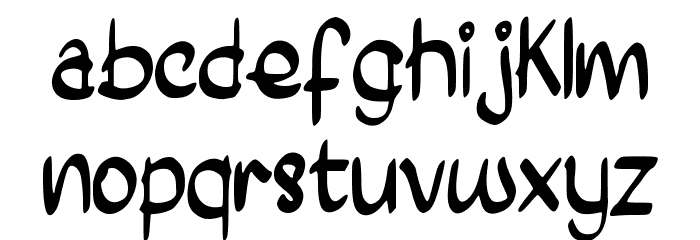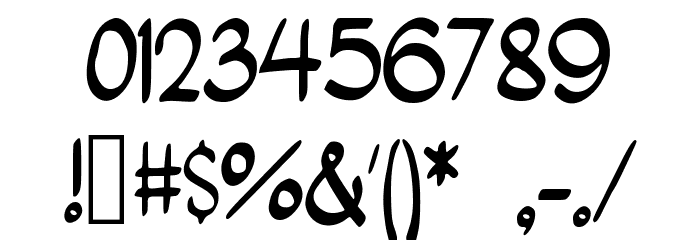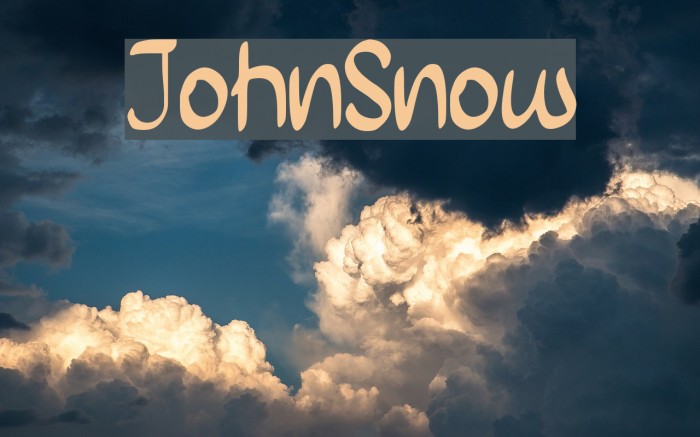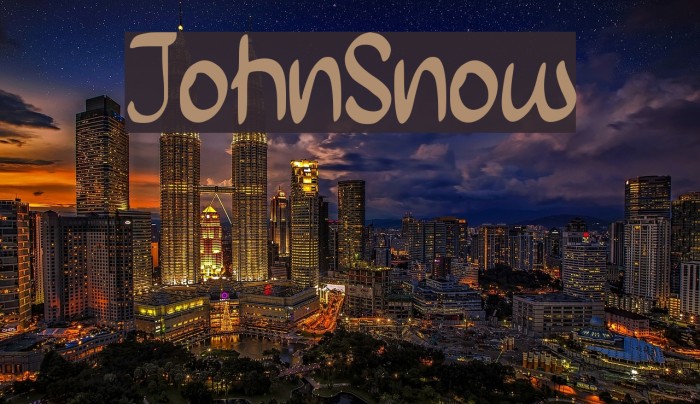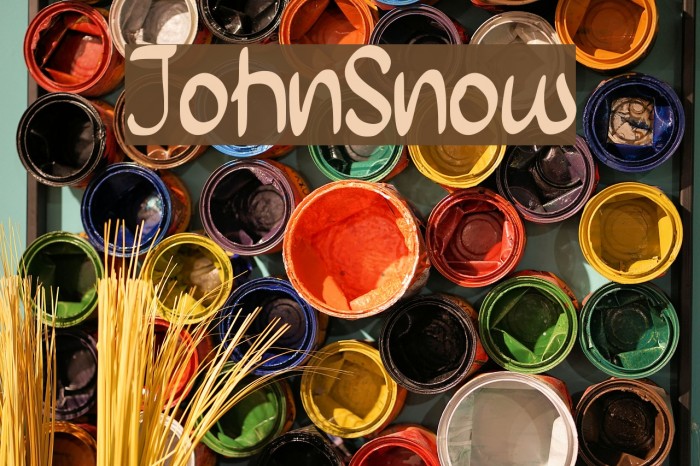
John_Snow Font
This font features a playful and informal style, characterized by its handwritten appearance. The letters have a slightly irregular shape, giving them a casual and friendly feel. The strokes are moderately thick, with a consistent weight throughout, contributing to a balanced look. The characters are slightly slanted, adding a dynamic and energetic touch. The spacing between characters is normal, ensuring readability while maintaining the font's lively character. This style is suitable for projects that require a personal and approachable tone.
A playful, handwritten-style font with a casual and friendly appearance.
- Proposed Projects: Ideal for greeting cards, children's books, informal invitations, and playful branding.
- Overall Style: Casual
- Use Case: Headlines, Informal text, Branding